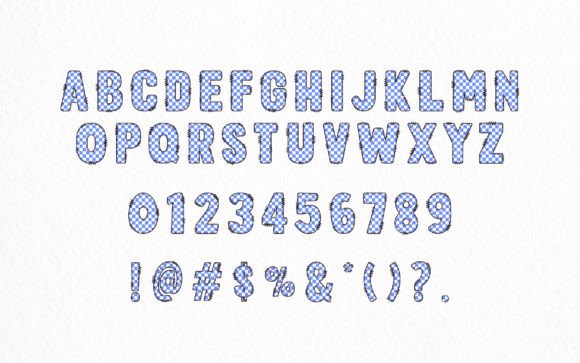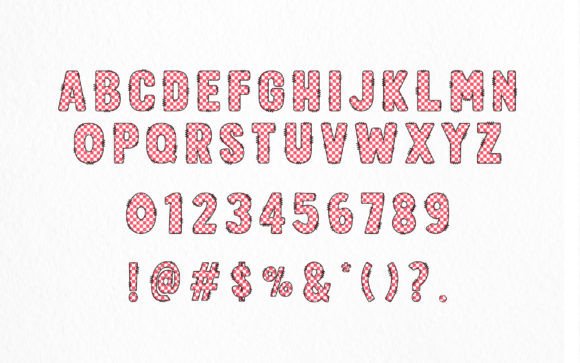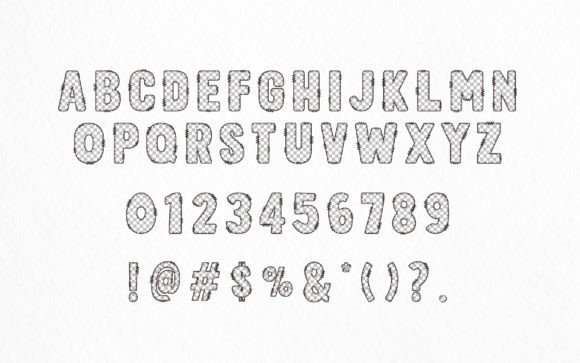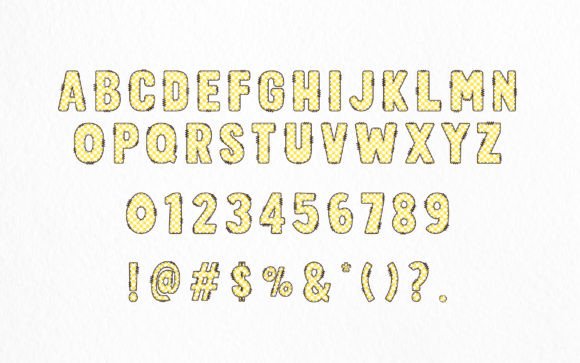
Introducing the Checkered Retro Font: A Unique and Versatile Design Element
Are you looking for a font that adds a touch of nostalgia and playfulness to your designs? Look no further than the Checkered Retro Font, a stylish and versatile checkered alphabet that’s perfect for crafters, designers, and DIY enthusiasts. In this article, we’ll explore the features and benefits of this unique font, and provide you with tips on how to use it in your projects.
What is a Checkered Font?
A checkered font, also known as a checkered alphabet, features characters that incorporate a pattern resembling a checkerboard. This pattern typically consists of alternating squares or rectangles of contrasting colors, such as black and white or other color combinations. The Checkered Retro Font is a beautiful example of this type of font, with its bold and colorful design that’s sure to grab attention.
Key Features of the Checkered Retro Font
- Unique Design: The Checkered Retro Font features a distinctive checkered pattern that’s perfect for adding a touch of nostalgia and playfulness to your designs.
Using the Checkered Retro Font in Your Designs
The Checkered Retro Font is a versatile design element that can be used in a variety of projects, from DIY crafts to professional design work. Here are some ideas to get you started:
- Cricut Projects: Use the black version of the font to create custom signs, banners, and decorations with your Cricut cutting machine.
- Digital Designs: Use the color version of the font to create stunning digital designs, such as social media graphics, blog posts, and presentations.
- Paper Crafts: Use the font to create custom cards, invitations, and scrapbook pages.
- Sign Making: Use the font to create eye-catching signs for your business, event, or home.